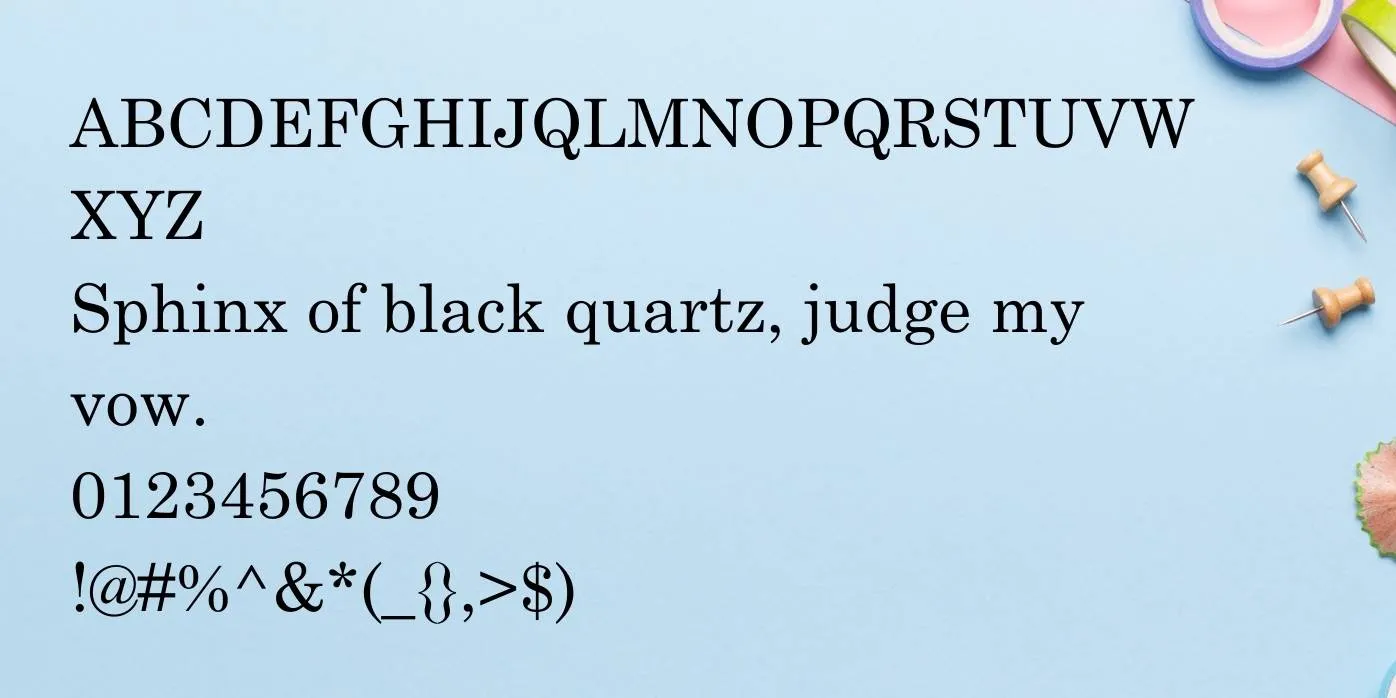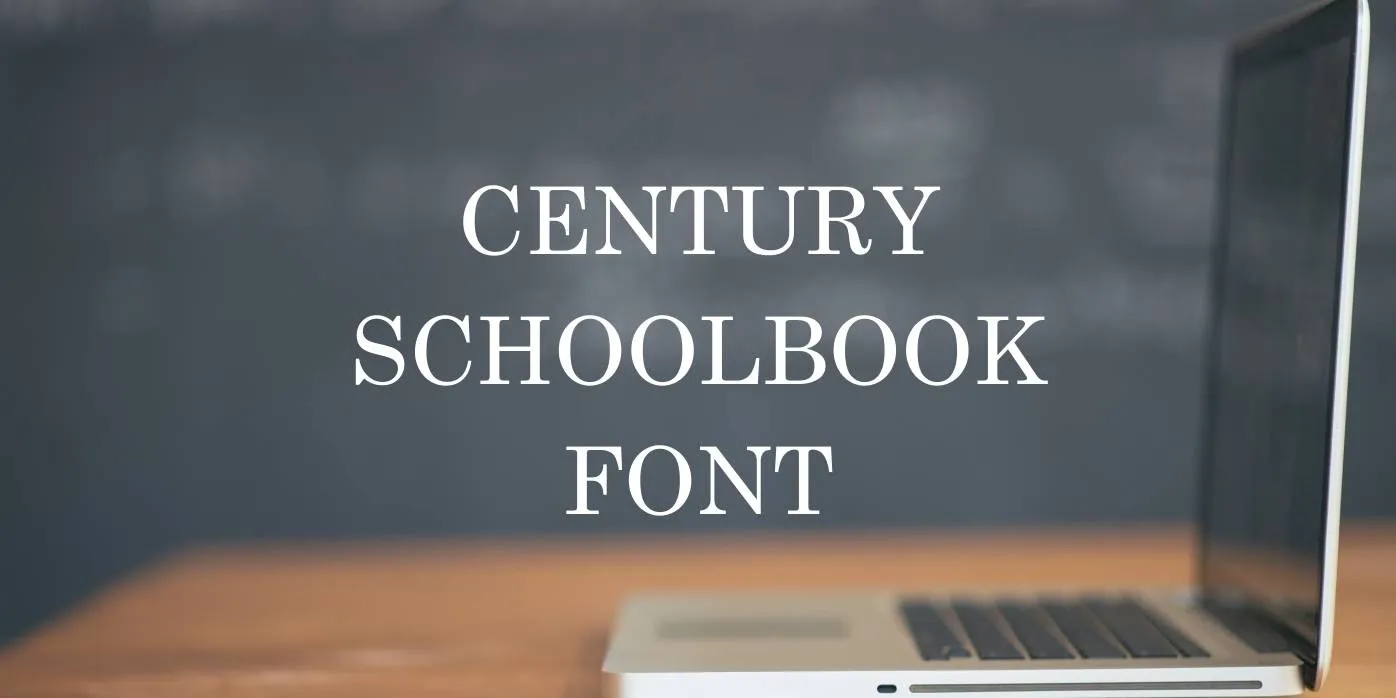
Century Schoolbook Font
Century Schoolbook Font is the regular style with a beautiful fancy touch typeface that belongs to a Serif typeface font. The designer of this typeface is Morris Fuller Benton, the font has a TTF feature and is free for personal use only. The serif typefaces are very common for textual content especially for body text and printing projects as well. It has TTF features with a great regular look.
Its glyphs include Uppercase and Lowercase Letters, useful symbols, and Numbers or numerals also. Its serif style characters provide an unrepeatable performance to any design. Characters like serif fonts have been used since ancient times. For example, they were used in typewriters in the old days and are often seen in newspapers.
In addition, people used to send letters to each other in a similar manner.